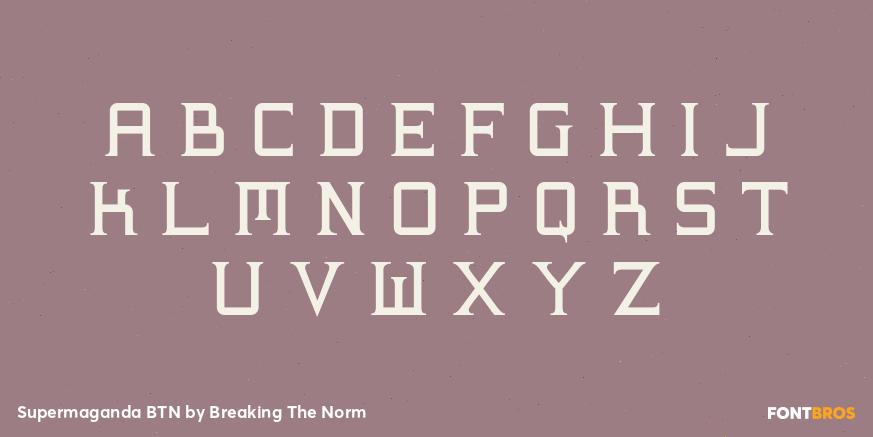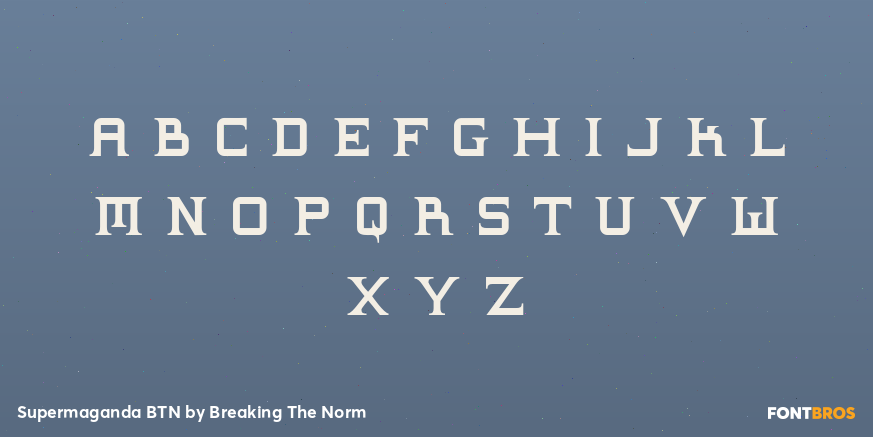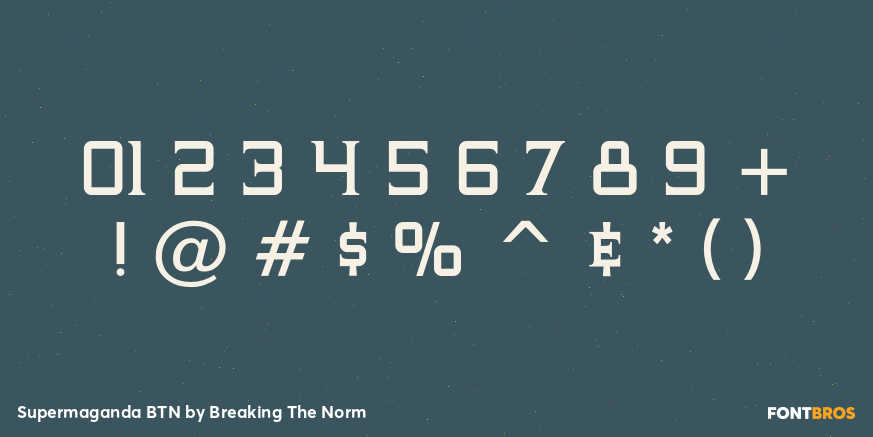
Supermaganda BTN
Font Family by Breaking The Norm
Supremaganda BTN is a structural display family with a bold institutional character and a strong poster-driven presence. Its rigid construction and authoritative tone give it an emblematic, ideological feel suited to propaganda-style graphics, vintage posters, editorial headlines, packaging, signage, and branding that calls for a commanding visual voice. The family includes Regular, Shadow, and Banner styles, offering flexible options for creating typography that feels disciplined, graphic, and sharply composed. Supremaganda BTN is a strong choice for designs that need a serious display style with structure, impact, and visual authority.